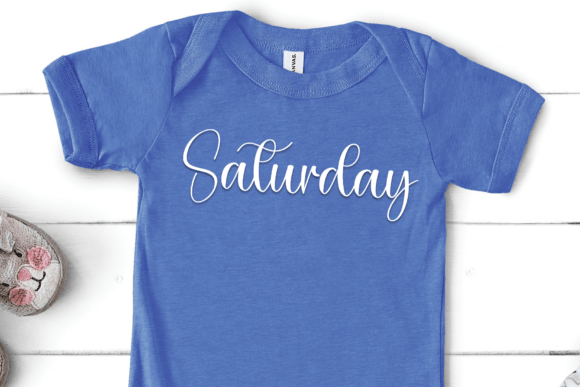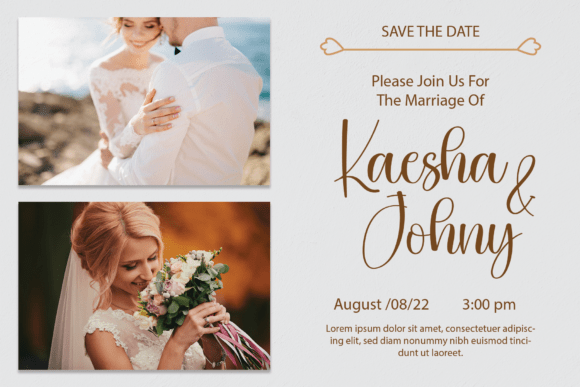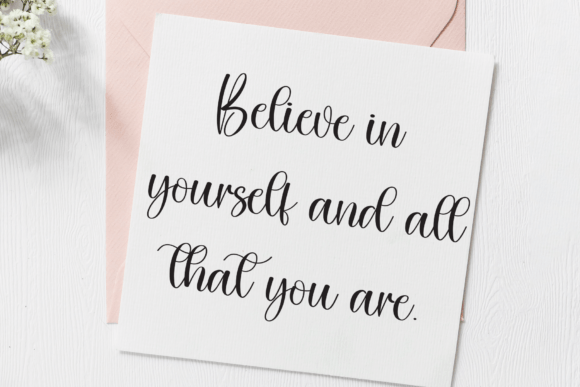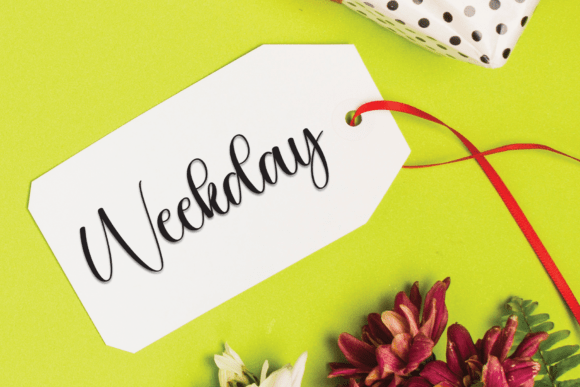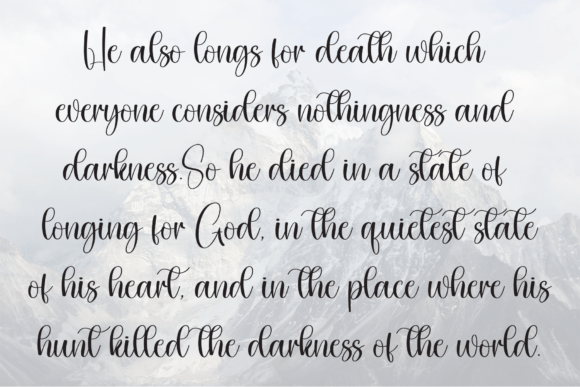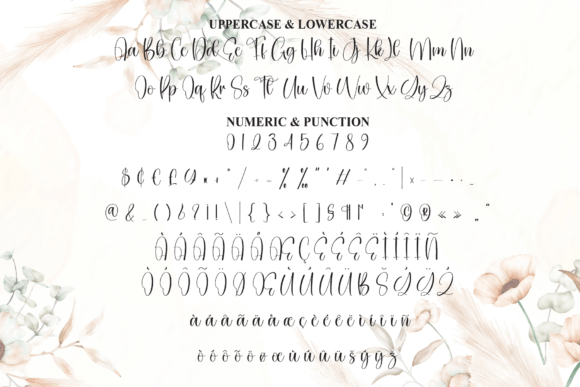
Introduction to Seventies Font
A charming script handwritten font that brings a personal, elegant touch to your designs.
With smooth curves, natural flow, and a slightly casual style, it feels like it was written with care, making it ideal for wedding invitations, personal branding, greeting cards, and lifestyle blog graphics Its versatility shines in both romantic and modern aesthetics.